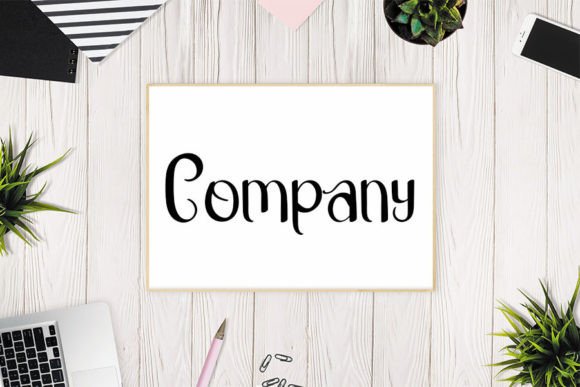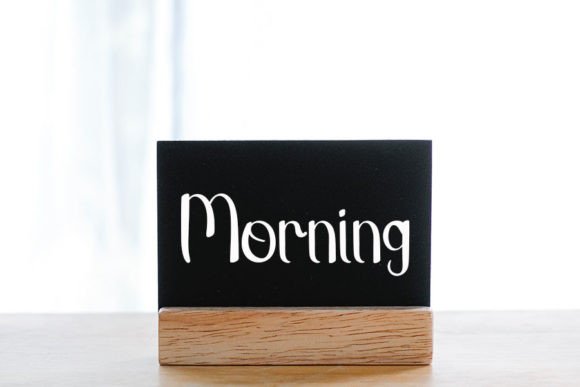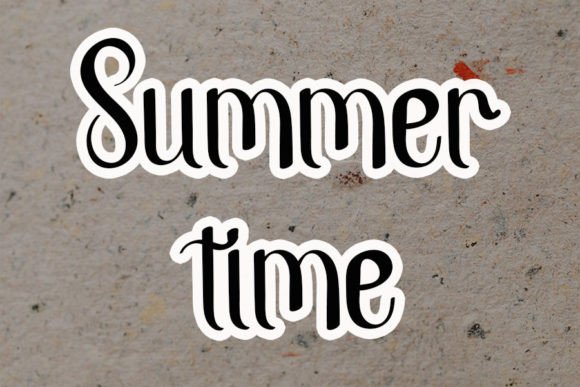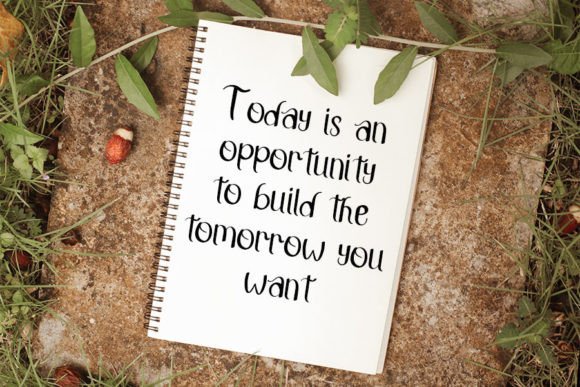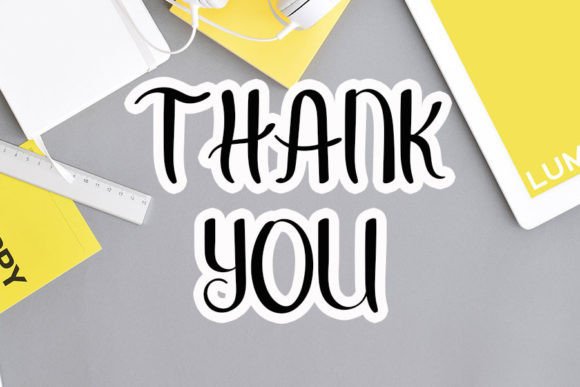
Introduction to Evolution Font
Evolution is a colorful handwritten font carefully created with a touch of elegance.
Clean and a little bit quirky, this font is the perfect fit for all of your logos, branding, social media, and crafty DIY projects .